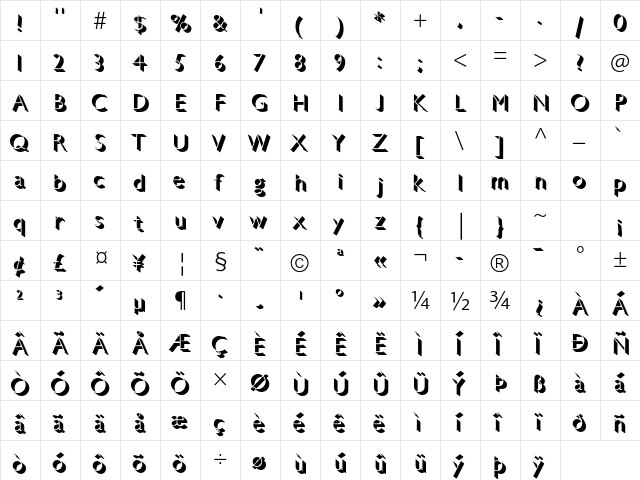
Gill Sans Std Light Shadowed Font Preview
Gill Sans Std Light Shadowed
| Designer | Eric Gill |
Design Context for Gill Sans Std Typeface
Gill Sans Std is built around its visual character rather than neutral utility — its distinctive forms are designed to make an impression at display sizes. Its slender proportions lend an understated elegance to any composition.
Font Pairing: Pair with a clean neutral sans-serif for body copy to let Gill Sans Std's character lead without overwhelming the composition.
Pro Tip: Use Gill Sans Std exclusively at display sizes — it was designed to be seen, not read at length. Let a neutral companion handle body copy.